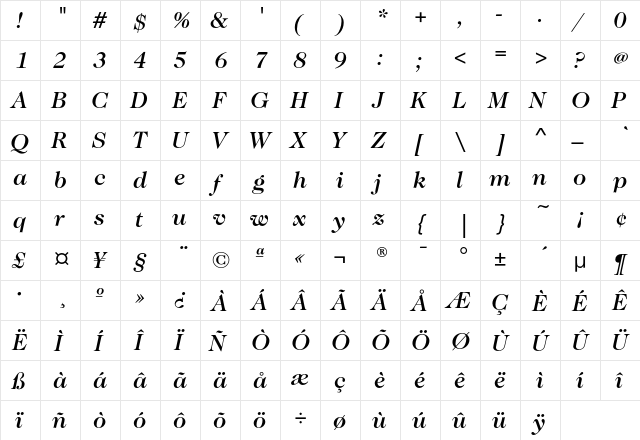
CaslonNo224EF-MediumItalic Regular
Design Context for CaslonNo224EF-MediumItalic Typeface
CaslonNo224EF-MediumItalic is a composed and adaptable typeface that performs quietly and consistently across a wide range of design contexts. The dynamic lean of this cut emphasises speed and emphasis in any layout.
Pro Tip: Try CaslonNo224EF-MediumItalic for annotation and caption copy alongside an upright companion — the contrast in angle creates a dynamic but ordered typographic system.